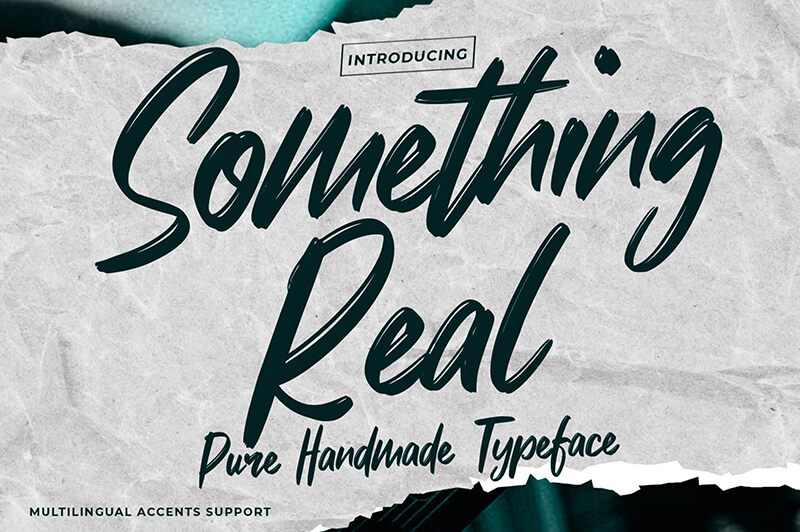
Something Real
Something Real by Gassstype stands out as a pure handmade typeface, boasting an authentic style that captures the essence of brush strokes written with a casual yet dynamic flair.
This semi-light font exudes an elegant charm, making it an ideal choice for designers looking to infuse a modern and fun vibe into their creative work. Its versatility shines across various applications – from bold posters to personalized greetings and sophisticated branding. The dramatic movement inherent in Something Real's design ensures that every word strikes with impact, perfect for adding a touch of natural elegance to labels, packaging, websites, and so much more.
Embrace the unique character of Something Real and let your projects resonate with its unmistakable authenticity and grace.